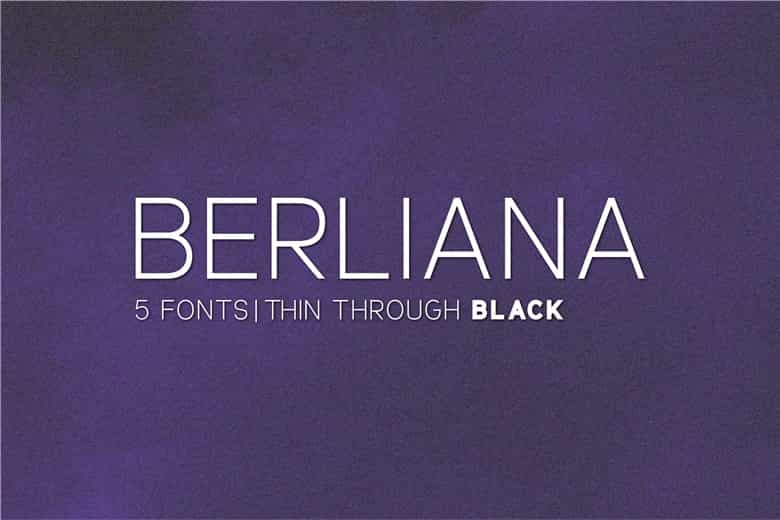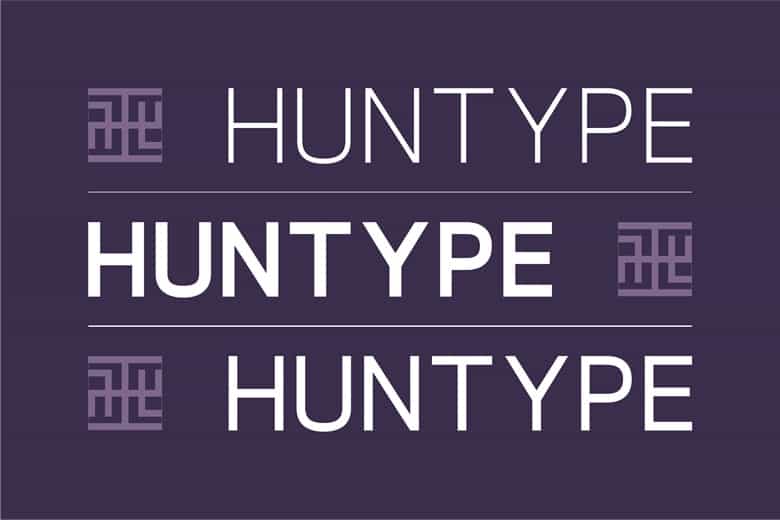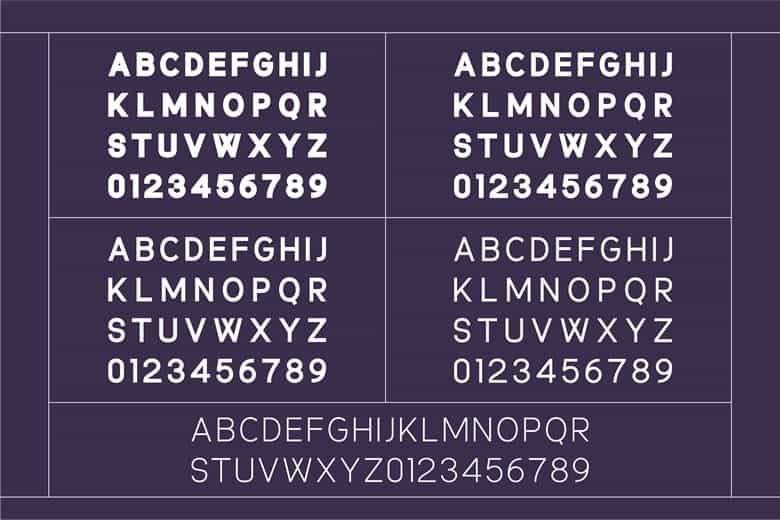
Let yourself be captivated by Berliana Font Family, a carefully chosen typeface that is a blend of today’s design and eternally elegant. Skeletore was designed with as much care as a surgeon’s scalpel, and was released in five calibrated weights – THIN, LIGHT, REGULAR, BOLD, and BLACK, making it an essential element of every modern designers’ kit and a perfect tool for all types of content designers. Berliana Font Family opens a wide range of opportunities where every concept is painted individually.